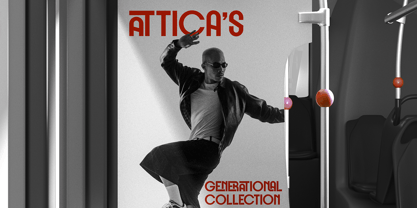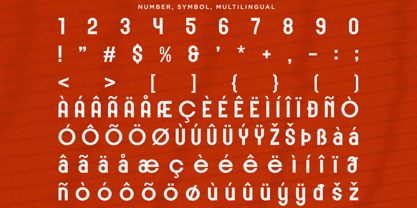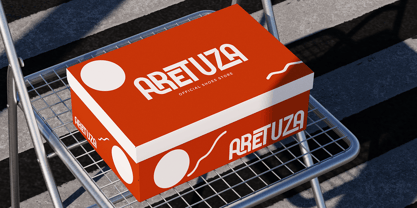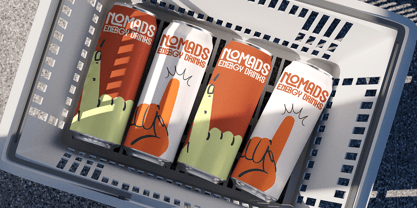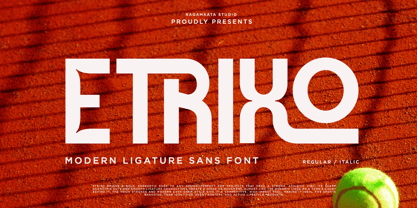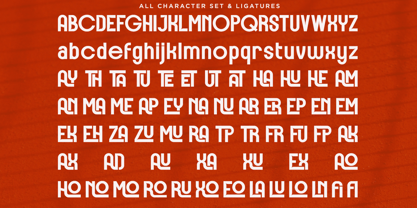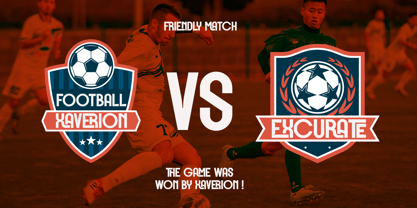
Etrixo
The Etrixo Font Family was designed by Yogiswhara Dio Prakoso Riadi and published by RagamKata. Etrixo contains 2 styles and family package options.
Etrixo is a bold, condensed sporty font crafted to bring excitement and impact to your creative projects. Its sturdy, narrow letterforms create a powerful visual presence, making it perfect for sports logos, athletic branding, and high-action designs. Etrixo’s strong, energetic style stands out in fast-paced settings, drawing attention and adding a dynamic edge to your work. Whats Included : - Etrixo Regular - Etrixo Italic - Stylish Ligatures - Numbers and Symbol - Multilingual Support Thanks, Have a wonderful Day Ragamkata Studio